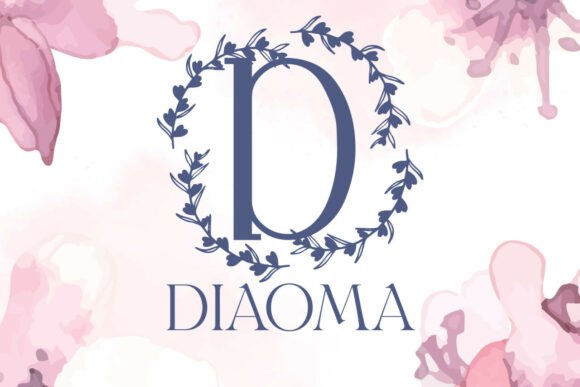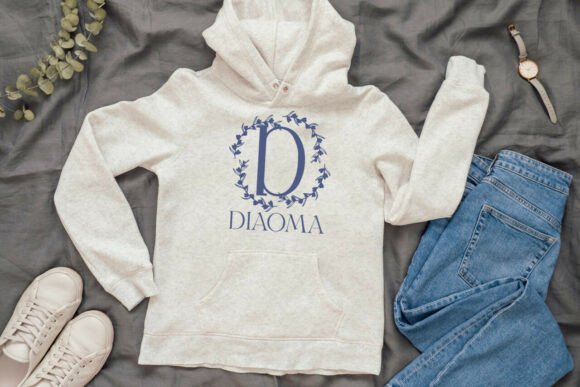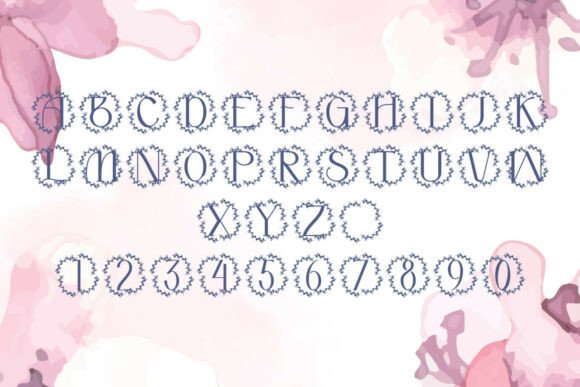
Introduction to Monarchine Monogram Font Font
Fonts play a crucial role in design, and the Monarchine Monogram Font font is a typeface that brings both character and versatility to any project. Whether you’re working on a branding project, a website, or a print design, the Monarchine Monogram Font font offers a unique style that can elevate your work.
| 📌 Font Name | Monarchine Monogram Font |
| 👤 Author | Sharon ( DmStudio ) |
Monarchine Monogram Font turns simple initials into regal emblems with modern clarity.
Strokes feel confident and smooth Counters stay open, so tiny tags, wax seals, and thumbnails read clean.
Key Features of Monarchine Monogram Font Font
Why Choose Monarchine Monogram Font Font?
The Monarchine Monogram Font font is more than just a typeface – it’s a design tool that helps you communicate your message with style and clarity. Its unique character set and versatile design make it suitable for a wide range of applications, from elegant invitations to bold headlines.
With its carefully crafted letterforms and balanced proportions, the Monarchine Monogram Font font ensures readability and visual appeal across all mediums.
What makes Monarchine Monogram Font font special?
The Monarchine Monogram Font font stands out with its unique design, exceptional readability, and versatility across various design applications.